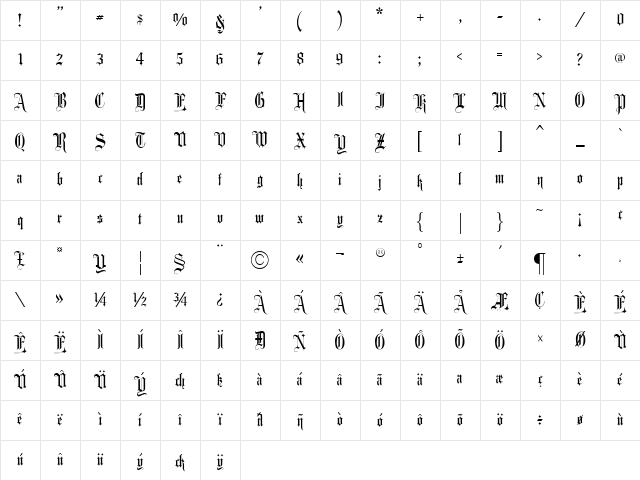
Fancy Card Text Regular
Complete Fancy Card Text Regular glyph index. Displaying only characters natively supported by Fancy Card Text Regular font.
Fancy Card Text is a composed and adaptable typeface that performs quietly and consistently across a wide range of design contexts.